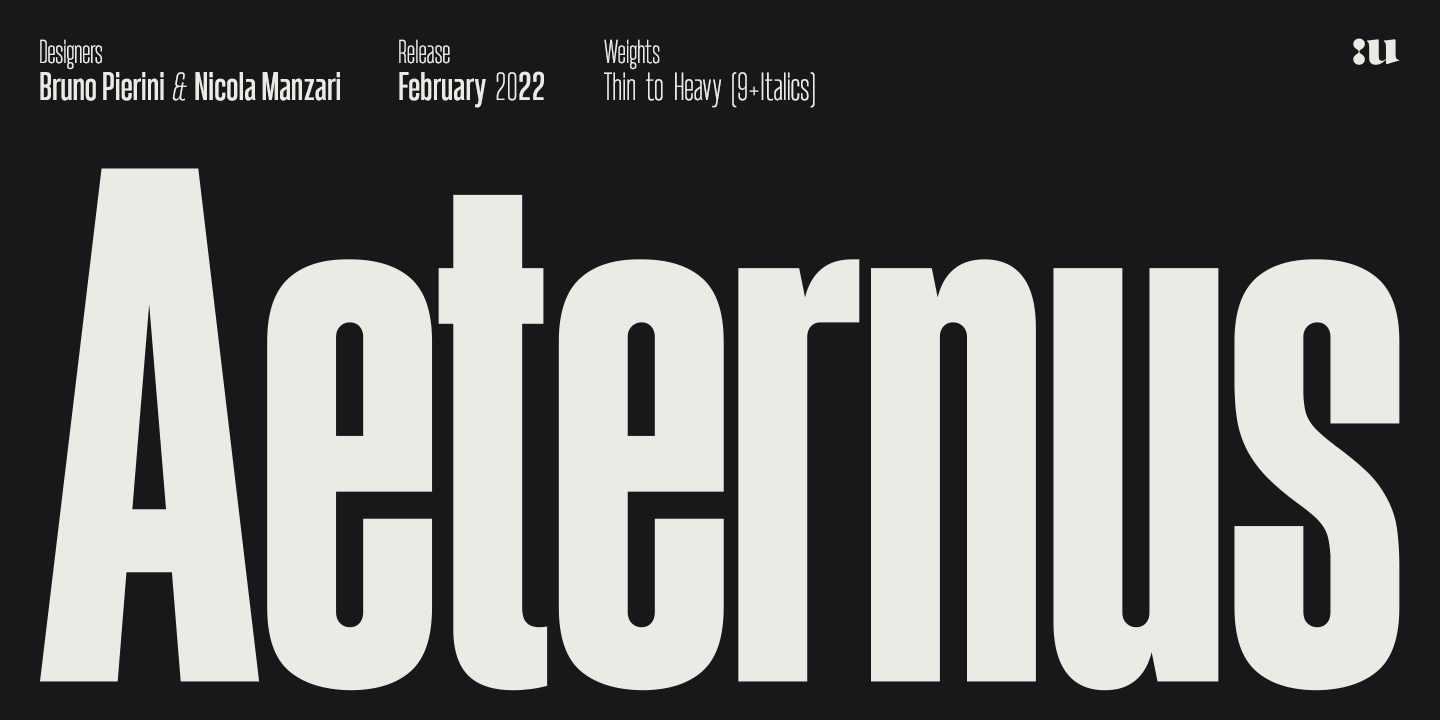
Aeternus Font excels in timeless design applications including heritage brand identity, classical architecture presentations, eternal monument inscriptions, prestigious institution materials, memorial design projects, historical society publications, timeless luxury branding, and distinguished advertising campaigns that require typography with everlasting character and immortal sophistication.
What makes Aeternus Font exciting is its profound ability to convey eternal permanence and timeless dignity through magnificently crafted letterforms that transcend temporal trends and embody enduring classical beauty. This majestic typeface features timeless proportions with eternal characteristics and monumental details that instantly communicate permanence, dignity, and immortal elegance. The font's eternal personality and enduring appeal make it perfect for brands seeking to establish lasting legacy and communicate values of permanence, tradition, and timeless excellence to audiences who appreciate enduring quality.
Aeternus Font family encompasses multiple weights and classical variations designed for comprehensive eternal communication. The family typically includes light, regular, medium, bold, and monumental weights, complemented by classical italics, timeless alternates, and extensive character sets with historical elements that enhance its eternal aesthetic and provide ultimate permanence.
Heritage designers consistently select Aeternus Font Free Download for projects requiring typography that embodies eternal permanence and timeless sophistication. This distinguished typeface adapts magnificently across classical applications, from prestigious institutional materials to eternal memorial inscriptions, delivering consistent messaging with unmistakable timeless authority and enduring elegance. The font's monumentally crafted letterforms ensure historical authenticity while maintaining excellent contemporary readability. Prestigious institutions worldwide rely on this eternal typeface to communicate brand values of permanence, legacy, and timeless excellence. Establish your brand's eternal legacy with Aeternus Font and create memorable visual communications that resonate with audiences who appreciate timeless beauty, enduring tradition, and the immortal power of classical design that transcends temporal boundaries.